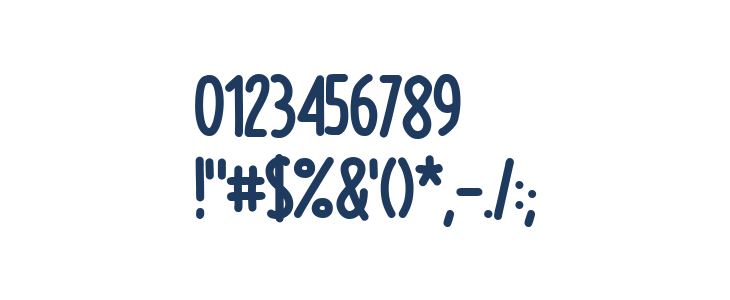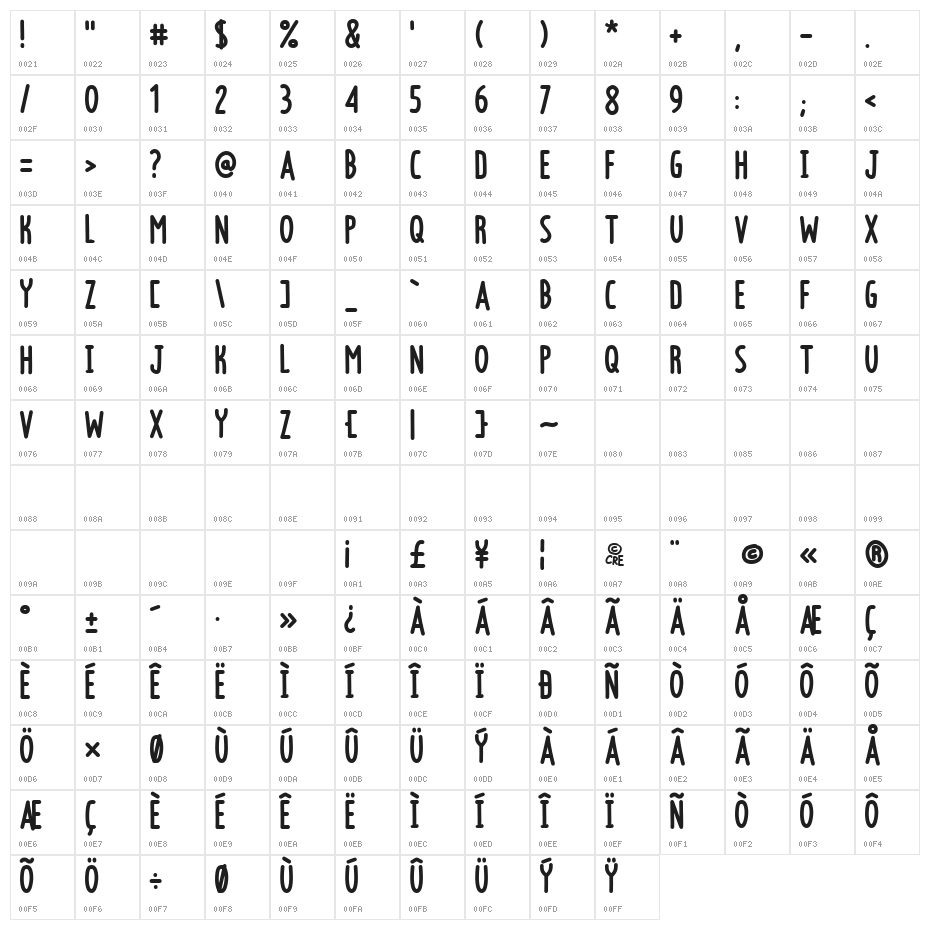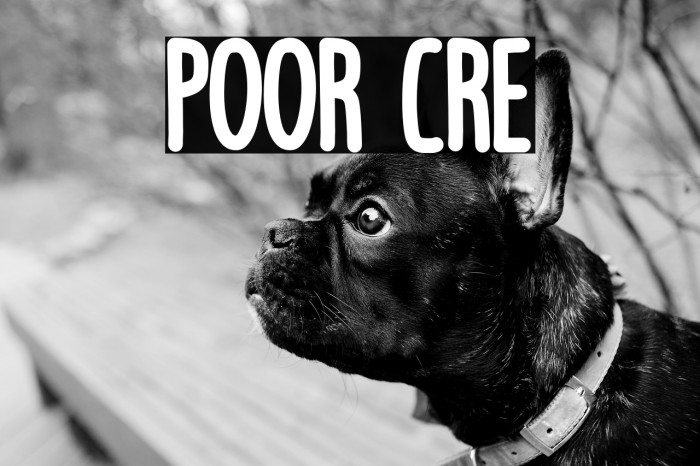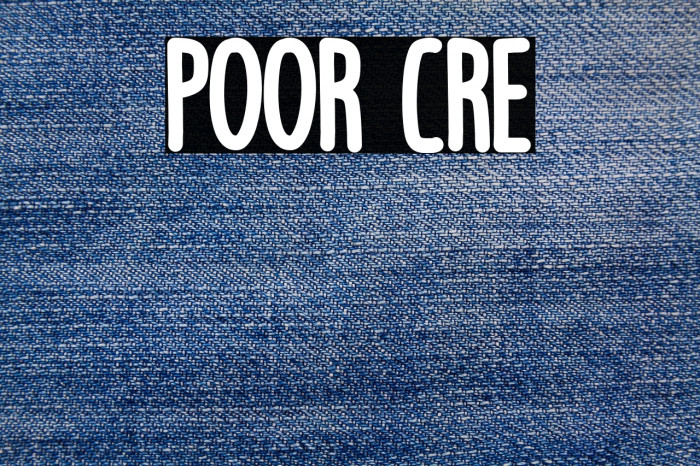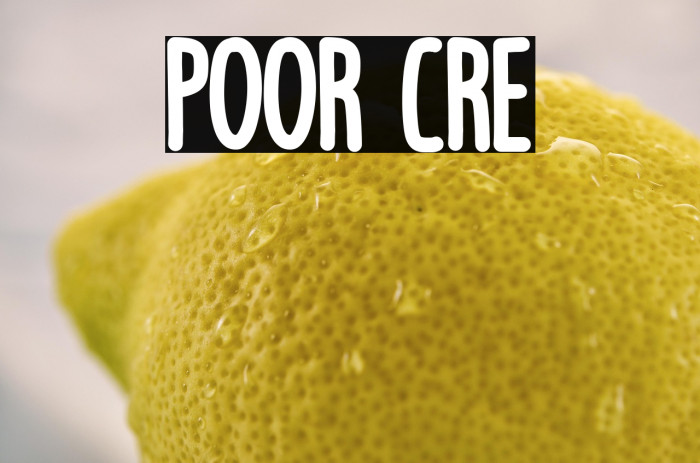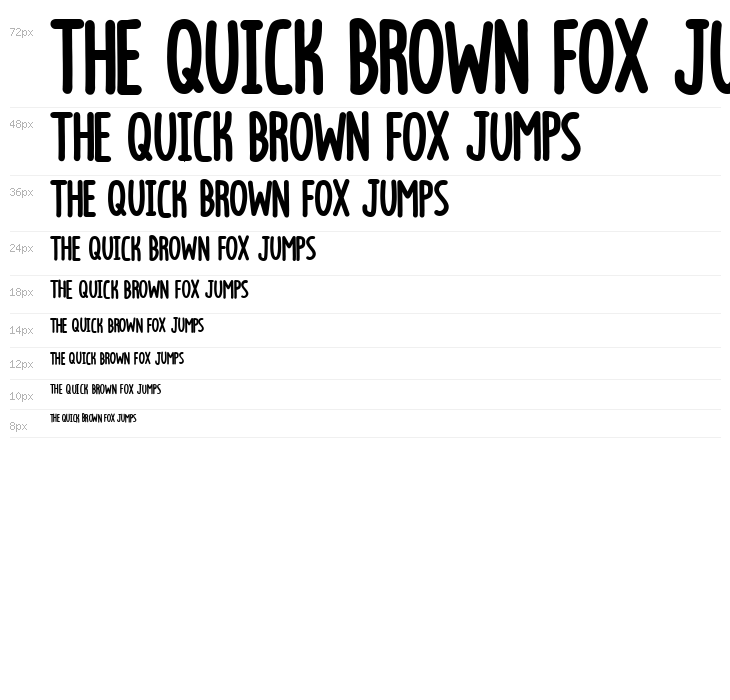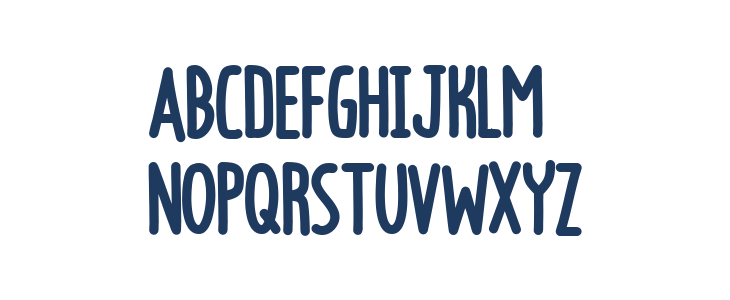
poor cre Font
This font features a playful and bold handwritten style, characterized by its thick, rounded strokes and slightly irregular letterforms that give it a casual and friendly appearance. The uppercase and lowercase letters maintain a consistent height, contributing to a cohesive look. The numerals and special characters are designed to match the overall style, ensuring uniformity across all glyphs. This font's informal and approachable aesthetic makes it suitable for a variety of creative applications.
Overall StylePlayful
Proposed ProjectsIdeal for children's books, greeting cards, playful branding, and social media graphics.